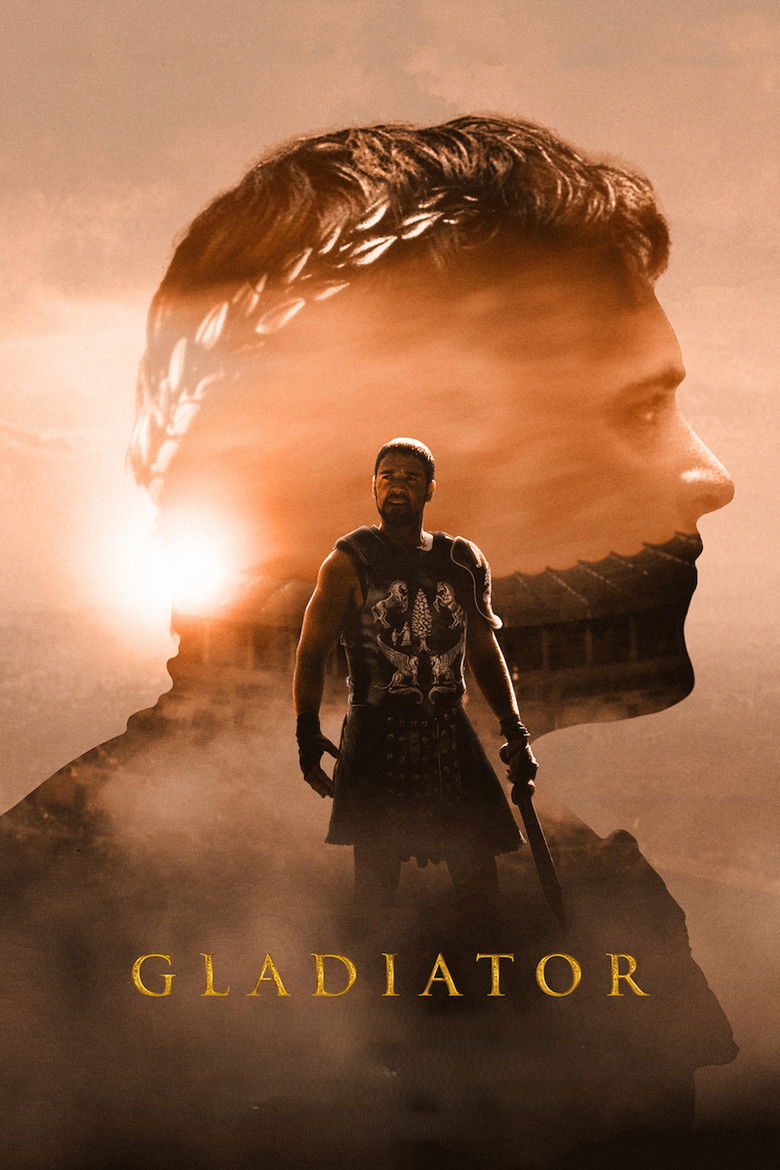
About the Gladiator font
Gladiator's title is a carved, epic serif. Cinzel brings that same Roman, arena-forged grandeur.
What font is used in the Gladiator logo?+